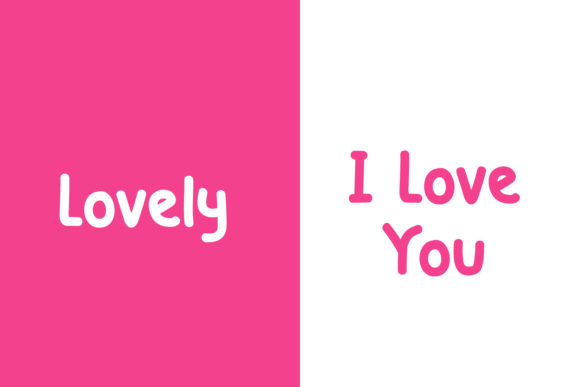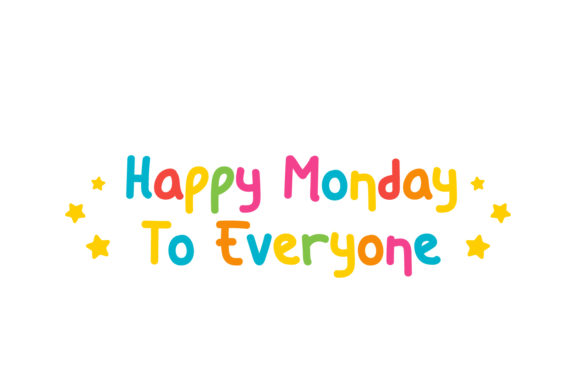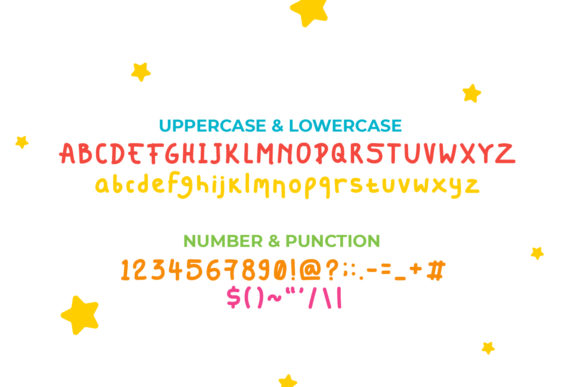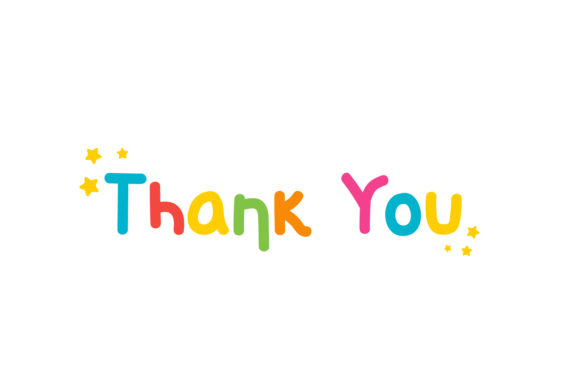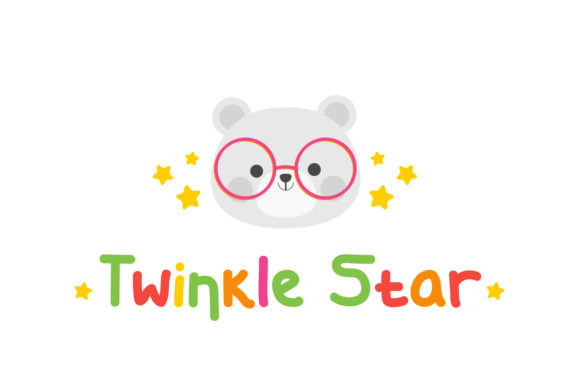
Dhelix Font: The Playful and Quirky Display Font for Creative Projects
Are you a designer, crafter, or educator looking for a font that embodies playfulness and authenticity? Look no further than Dhelix Font! This sweet and quirky display font is perfect for any children activity or school project that requires a touch of fun and whimsy.
What is Dhelix Font?
Dhelix Font is a unique and eye-catching display font that is designed to add a playful touch to any project. Its quirky and irregular shape makes it stand out from more traditional fonts, and its sweet and charming personality makes it perfect for projects that require a bit of whimsy.
Characteristics of Dhelix Font
Dhelix Font has several characteristics that make it a great choice for creative projects. Some of its key features include:
- Playful and Quirky: Dhelix Font has a fun and irregular shape that adds a touch of playfulness to any project.
- Sweet and Charming: Despite its quirky shape, Dhelix Font has a sweet and charming personality that makes it perfect for projects that require a bit of whimsy.
- Display Font: Dhelix Font is a display font, making it perfect for headlines, titles, and other prominent text elements.
- Highly Readable: Despite its quirky shape, Dhelix Font is highly readable, making it perfect for projects that require a font that is both fun and functional.
Uses for Dhelix Font
Dhelix Font is a versatile font that can be used for a wide range of creative projects. Some of the most popular uses for Dhelix Font include:
- Children’s Activities: Dhelix Font is perfect for children’s activities, such as coloring books, activity sheets, and educational materials.
- School Projects: Dhelix Font is also great for school projects, such as posters, presentations, and reports.
- Crafting Projects: Dhelix Font is a great choice for crafters who want to add a touch of whimsy to their projects, such as handmade cards, scrapbooking, and DIY decorations.
- Digital Design: Dhelix Font can also be used for digital design projects, such as social media graphics, blog posts, and website headers.
Tips for Using Dhelix Font
Here are a few tips for using Dhelix Font in your creative projects:
- Use it as a Display Font: Dhelix Font is designed to be used as a display font, so use it for headlines, titles, and other prominent text elements.
- Pair it with a Simple Font: To create visual interest, pair Dhelix Font with a simple font for body text.
- Experiment with Colors: Dhelix Font looks great in a variety of colors, so don’t be afraid to experiment and find the perfect color for your project.
- Have Fun: The most important thing is to have fun with Dhelix Font! Its playful and quirky personality makes it perfect for projects that require a bit of whimsy and creativity.
Dhelix Font is a sweet and quirky display font that is perfect for any children activity or school project that requires a touch of fun and whimsy. Its playful and irregular shape makes it stand out from more traditional fonts, and its sweet and charming personality makes it perfect for projects that require a bit of personality. Whether you’re a designer, crafter, or educator, Dhelix Font is a great choice for any creative project.